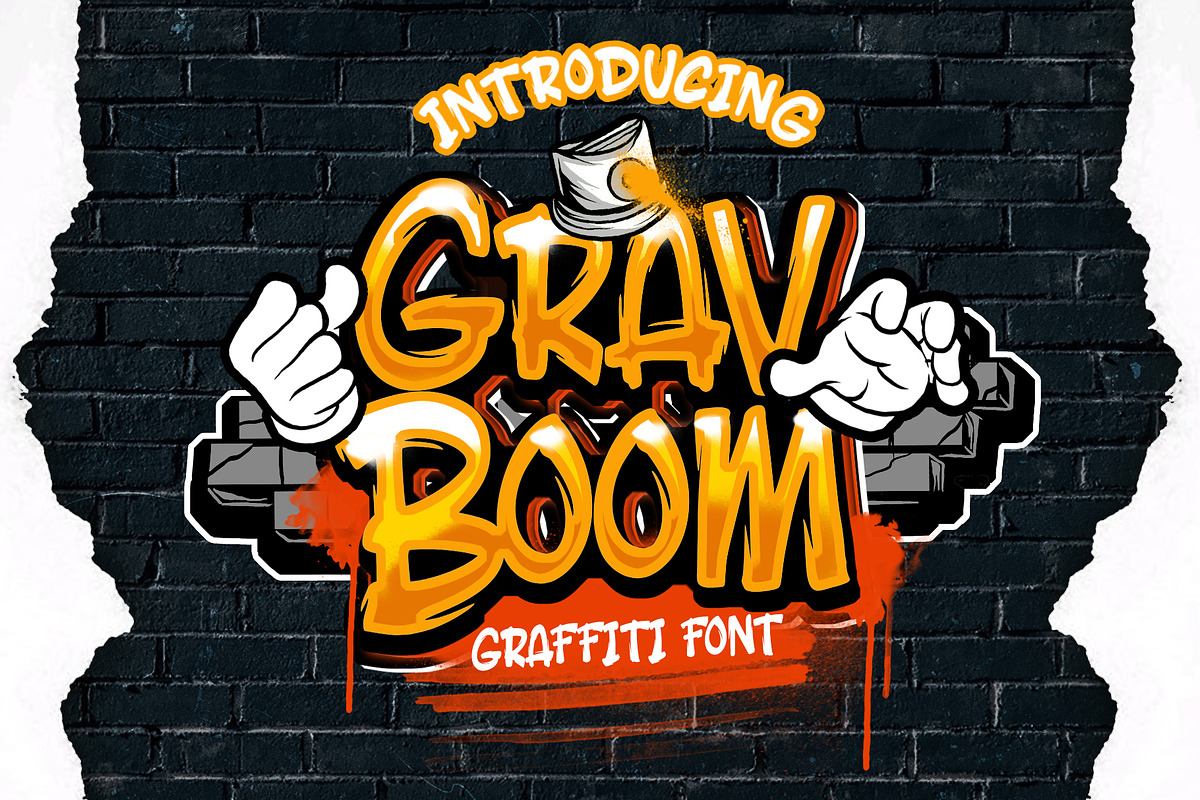
GravBOOM GRAFFITI FONT Free Download
GravBOOM Graffiti Font Free Download
GravBOOM Graffiti Font Free Download is a bold and energetic graffiti-style typeface designed to bring an urban, street art vibe to your designs. With its sharp, edgy lines and expressive strokes, this font is perfect for logos, posters, music album covers, streetwear branding, and any project that needs a rebellious, creative touch.
The font’s graffiti-inspired style gives it a dynamic, free-spirited look, making it ideal for projects that aim to convey boldness and individuality. Whether you're creating artwork for a music event, a hip-hop brand, or an underground movement, GravBOOM adds authenticity and power to your typography.